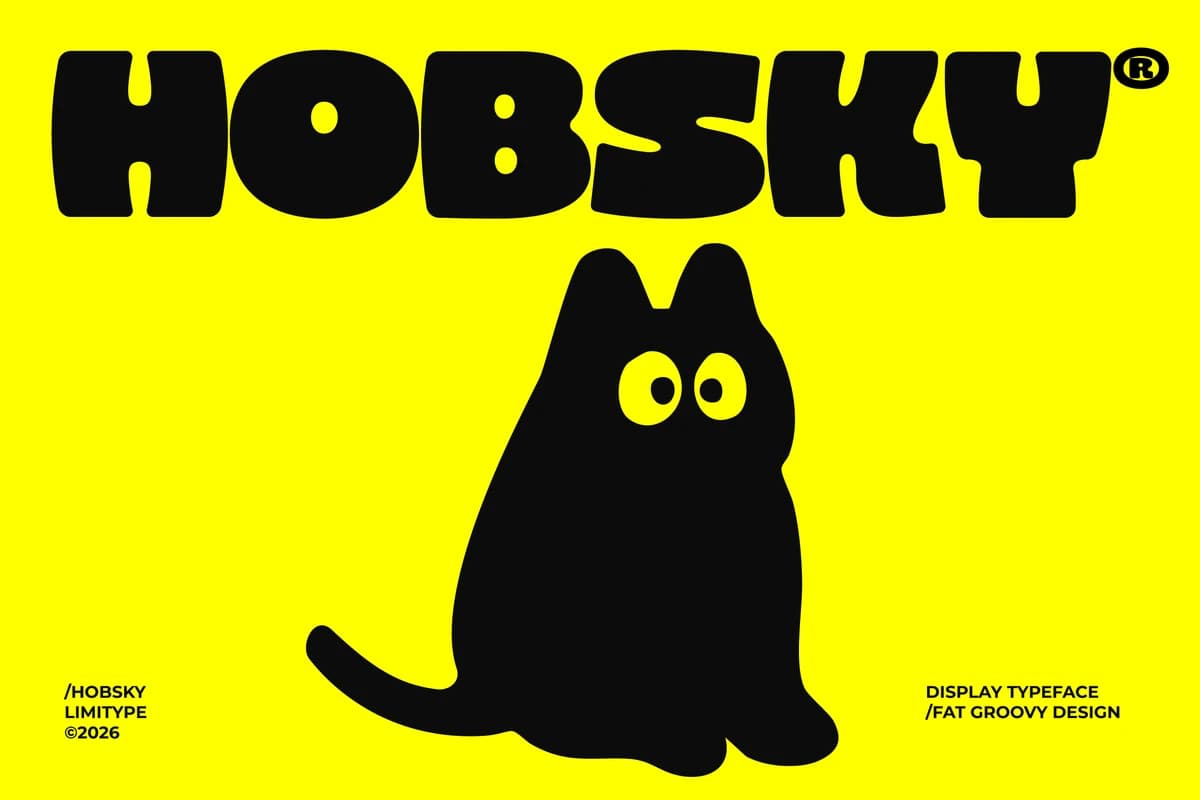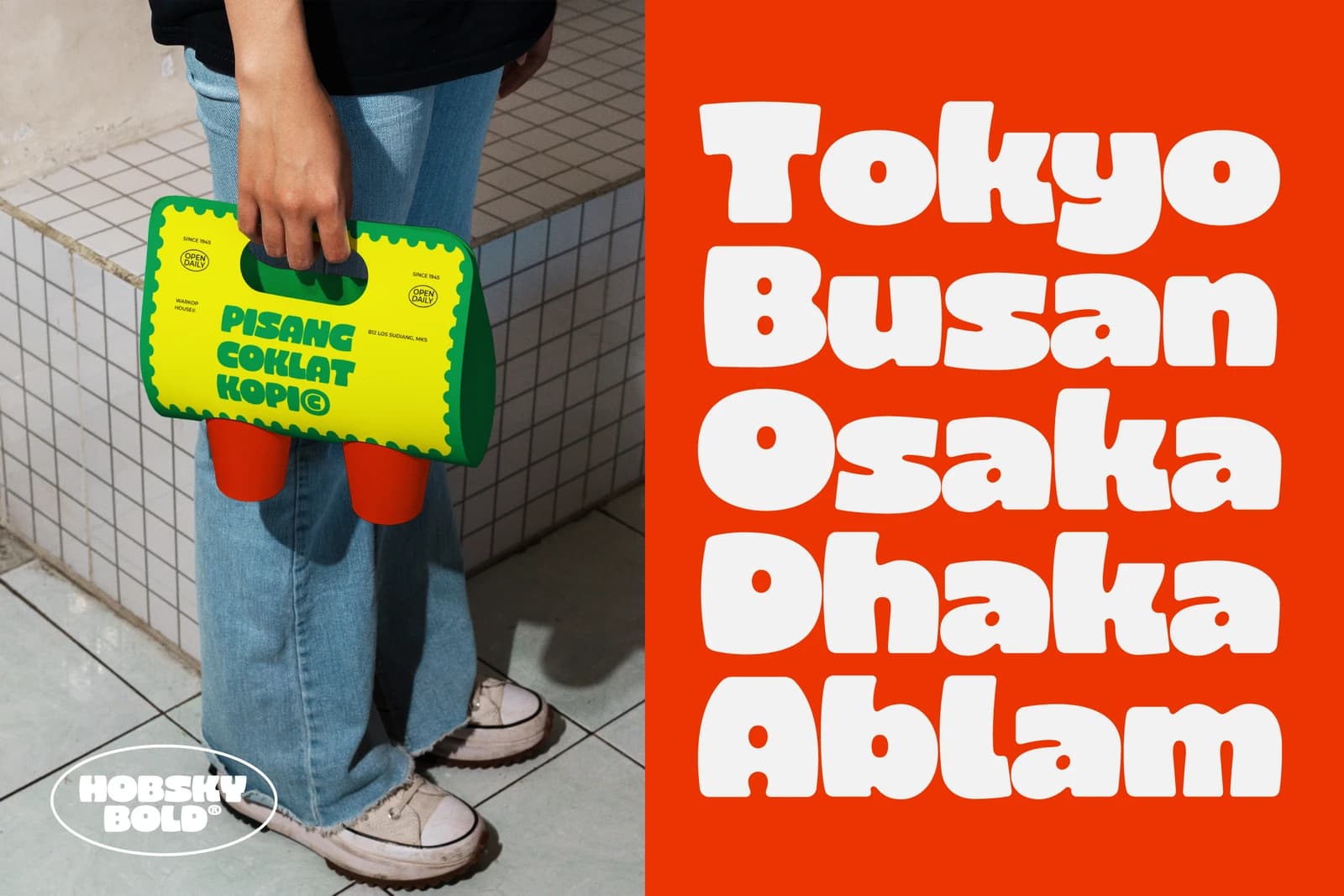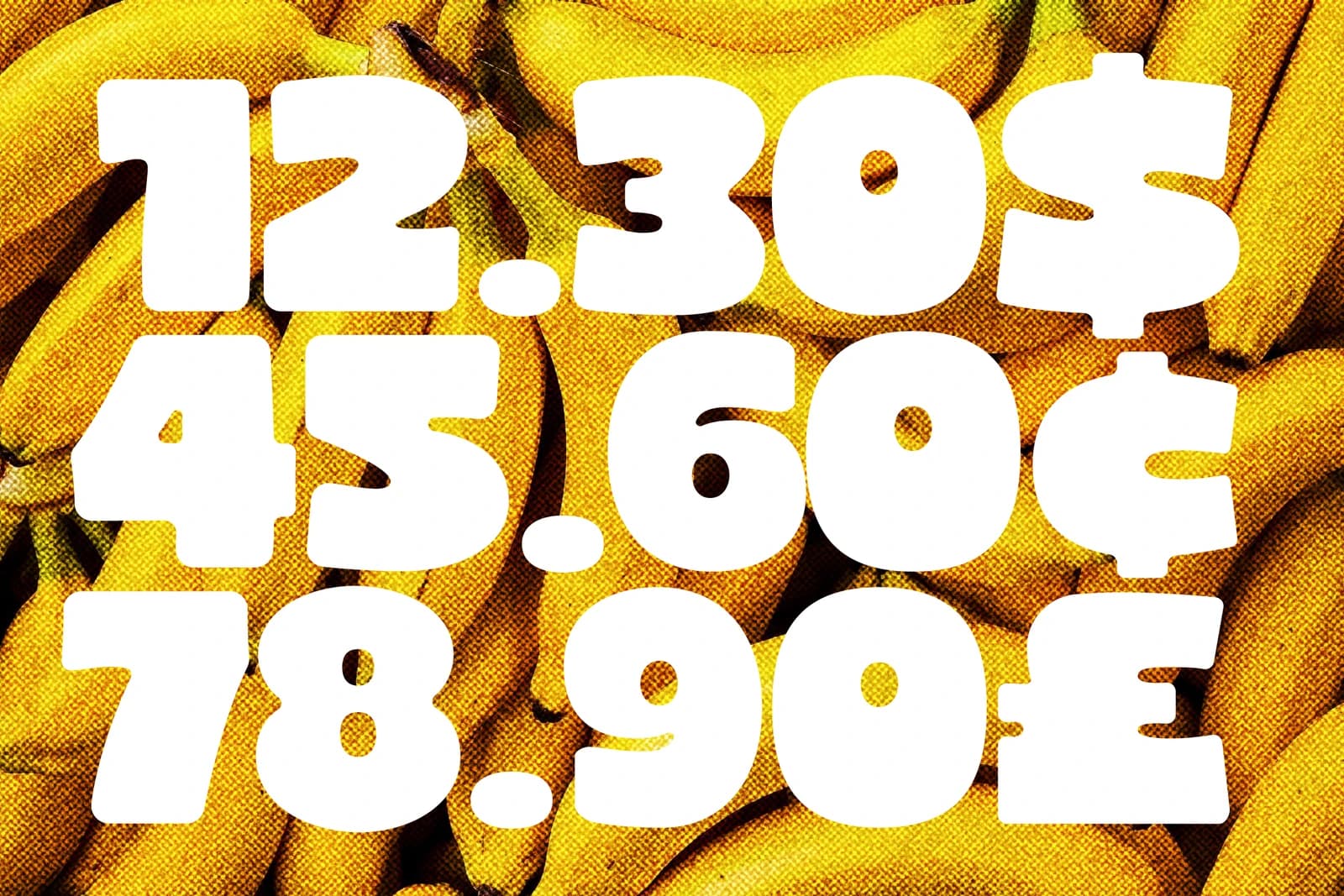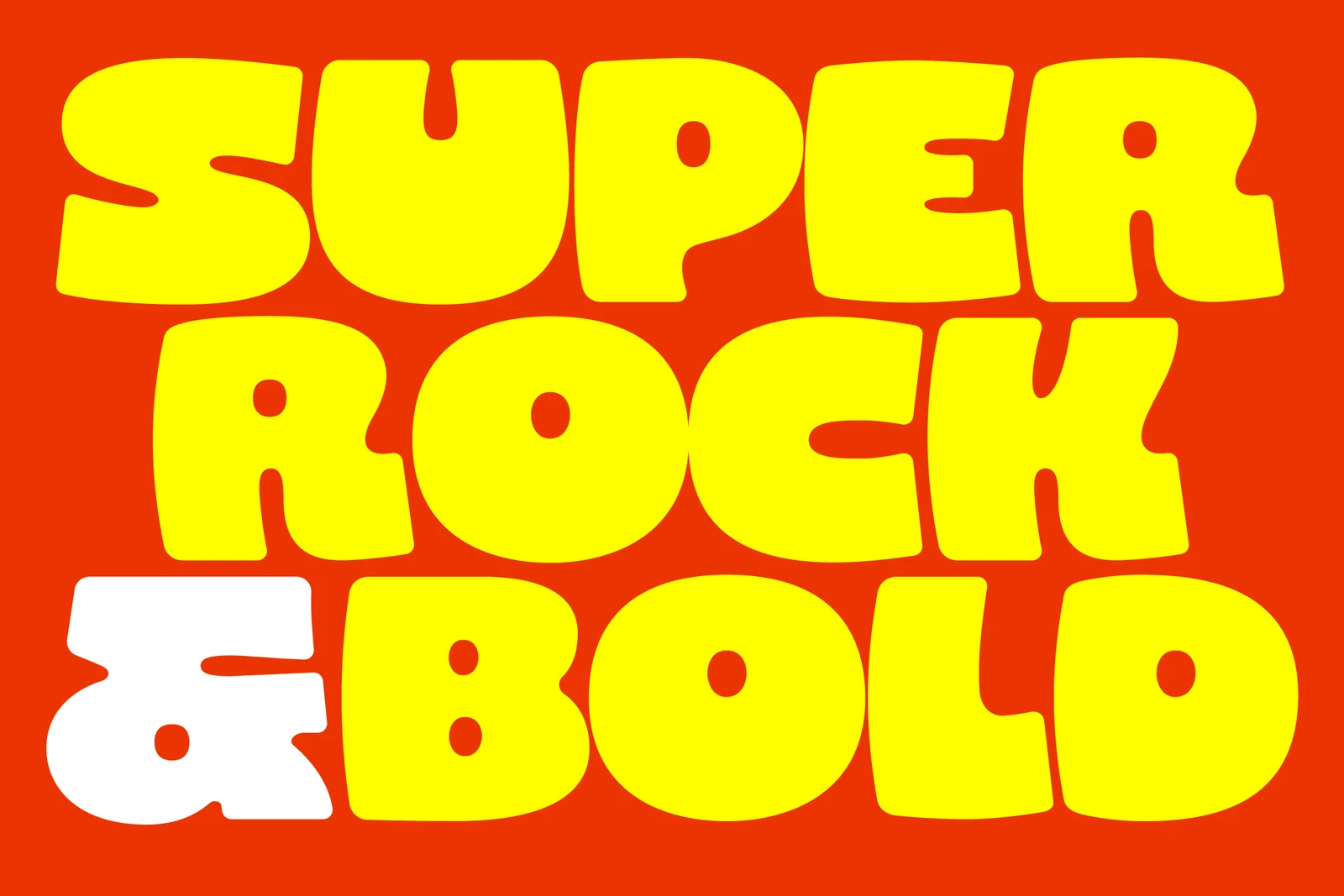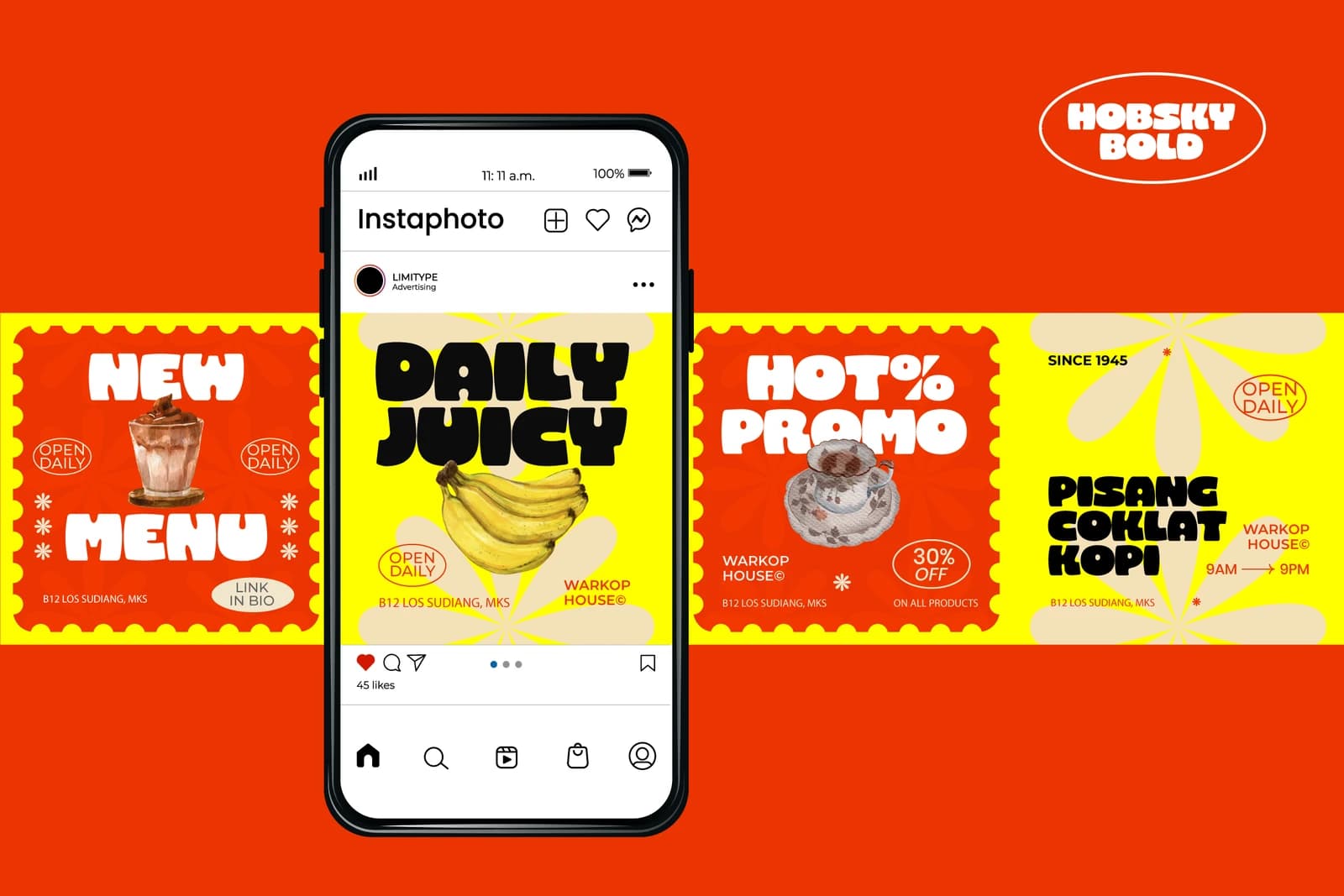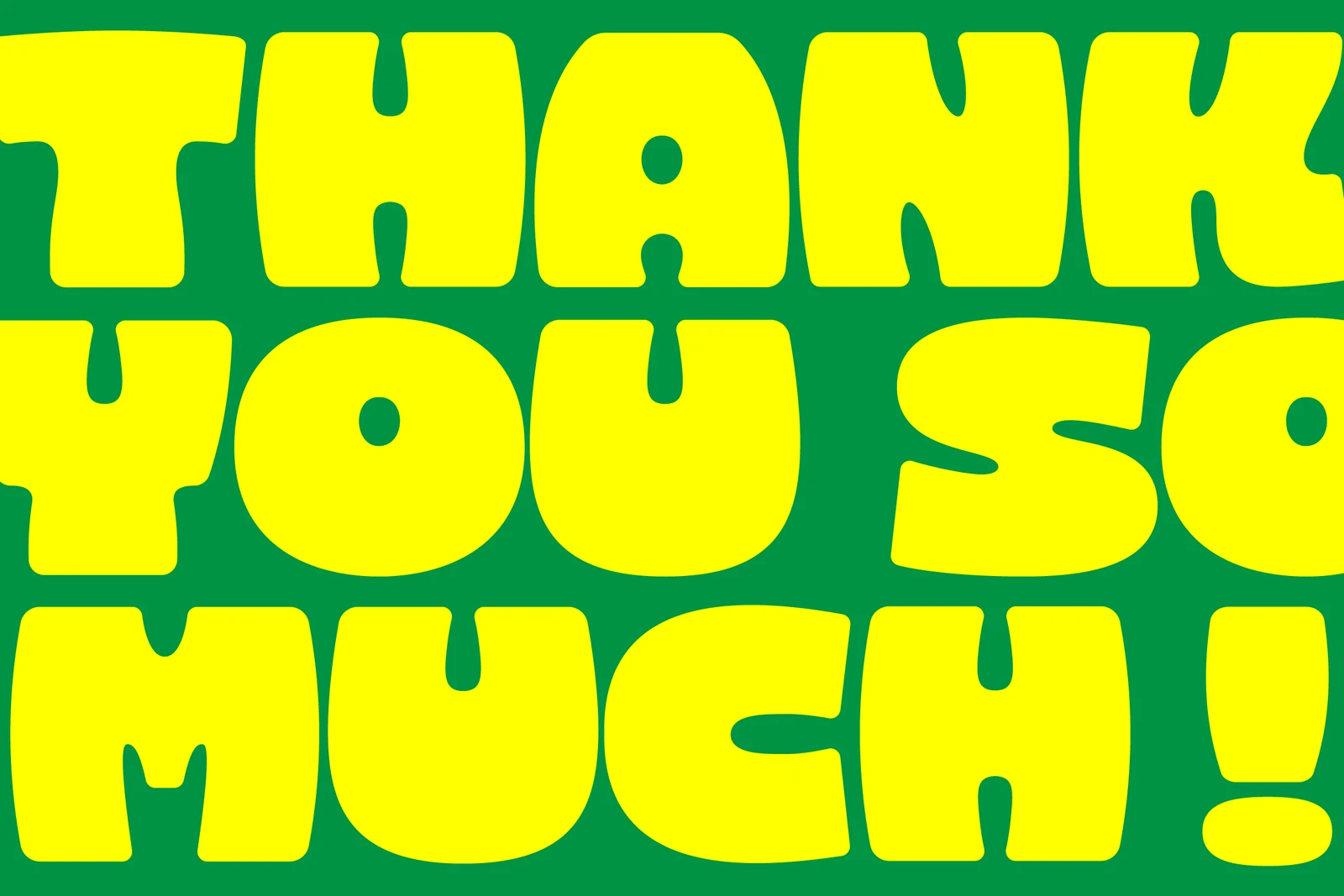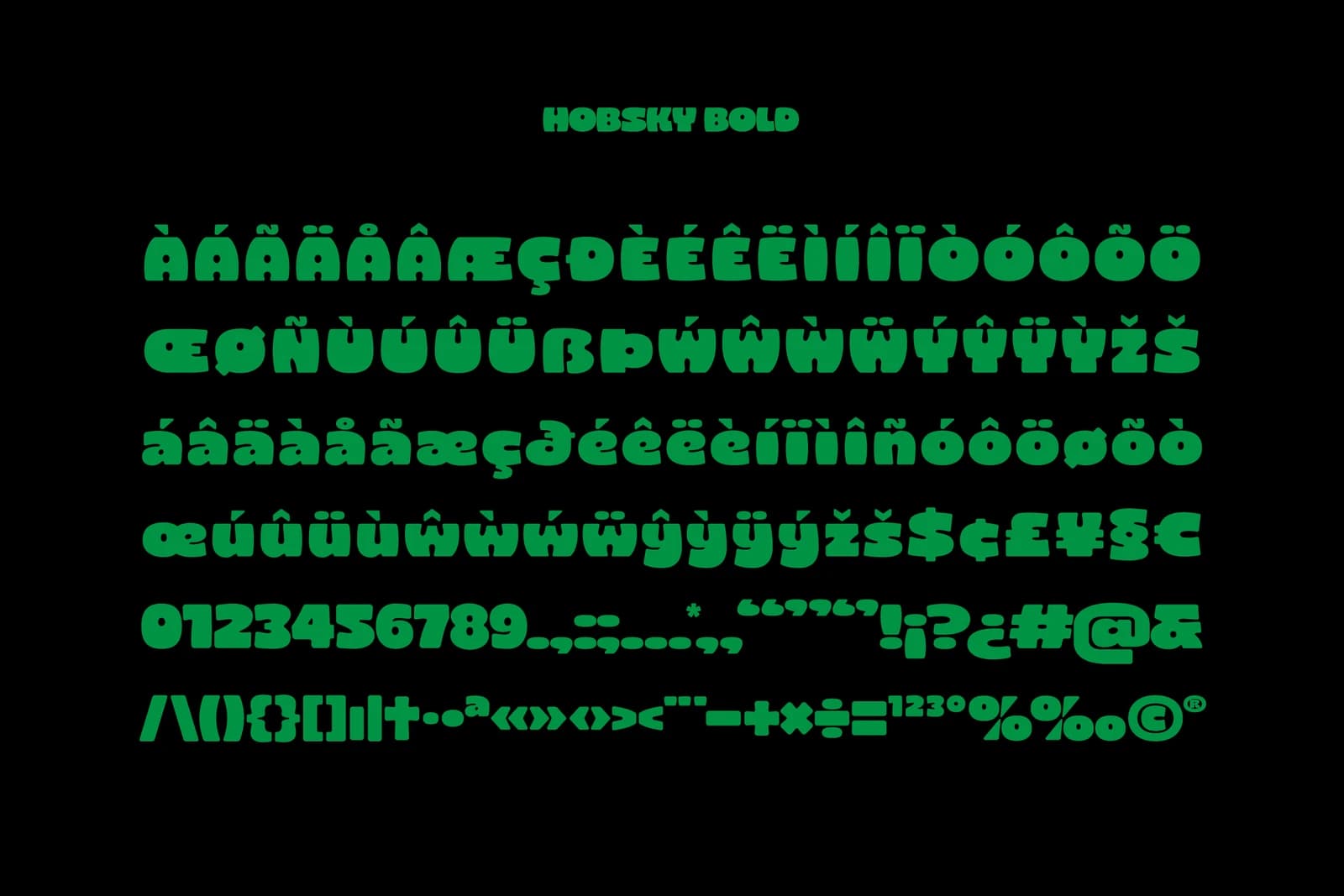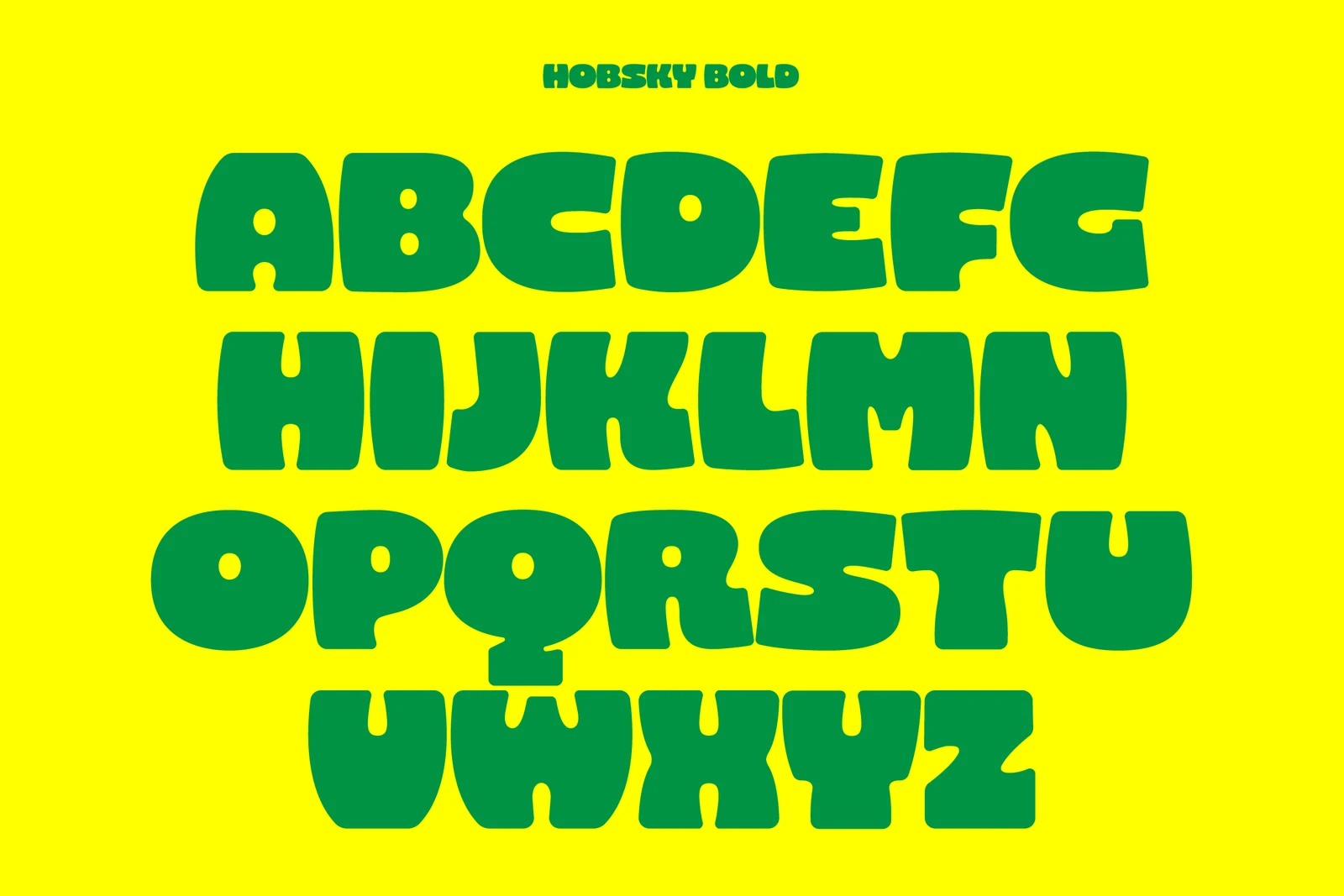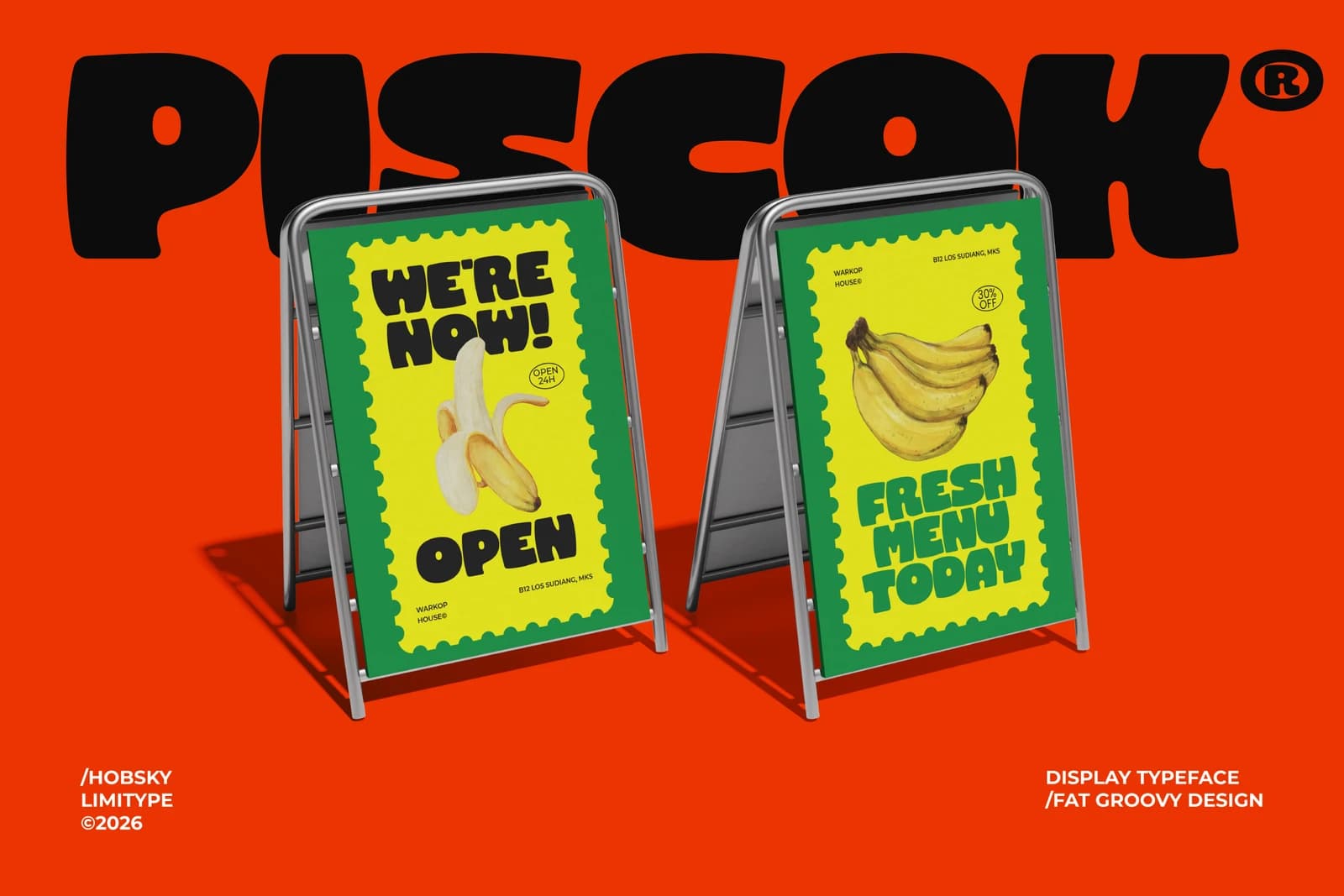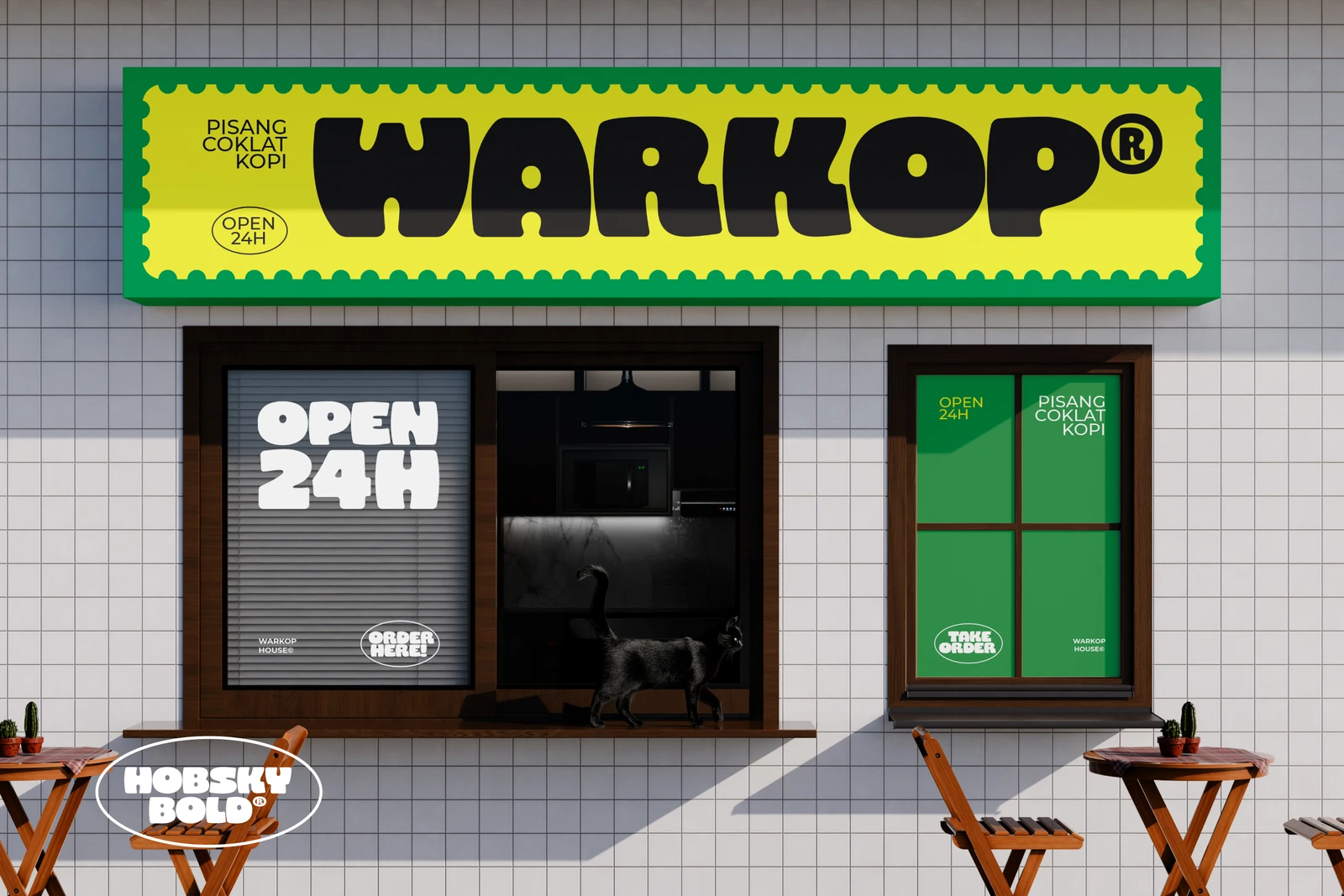
Hobsky - Bold Font
Hobsky is a bold display font featuring oversized curves, thick strokes, and smooth geometric construction. The font delivers a powerful graphic presence from the very first glance.
Its characters combine a retro-inspired attitude with modern minimalism, creating a typeface that feels energetic, stylish, and highly versatile. Hobsky is effective for logos, posters, streetwear, and creative campaigns turning simple text into a strong visual statement with personality and impact.